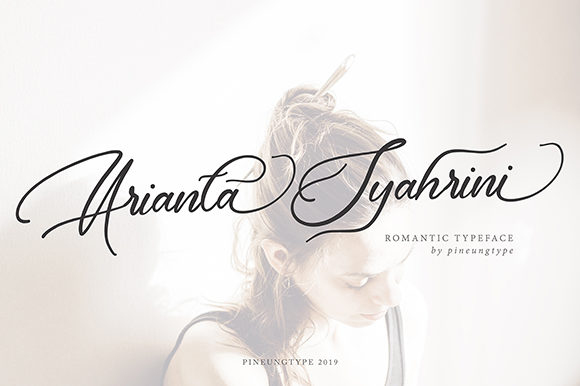
Journey into the enchanting world of Arianta Syahrini, a script font that dances with elegance and captivates with its playful charm. This extraordinary creation by Pineungtype & Missinklab is not just a font; it's an experience that transforms your designs into captivating masterpieces.
Arianta Syahrini's graceful strokes mimic the fluidity of a ballerina, effortlessly gliding across your designs with a sense of grace and refinement. Each letter is meticulously crafted, exhibiting the beauty of imperfect perfection, just like the brushstrokes of a talented artist. With its sophisticated feel, Arianta Syahrini elevates your projects to new heights of visual splendor.
Step into a realm where imagination knows no bounds, where your creative visions come to life with Arianta Syahrini. Its playful nature invites you to experiment with different styles, allowing your personality to shine through. Whether you're designing logos, invitations, cards, or social media posts, Arianta Syahrini adds a touch of whimsy and delight that captures the attention of your audience.
Embrace the allure of a font that speaks volumes, a font that transforms ordinary designs into extraordinary works of art. Arianta Syahrini is your gateway to a world of elegance and charm, where your creativity flourishes and your designs leave a lasting impression. Let your imagination soar as you explore the endless possibilities Arianta Syahrini has to offer.